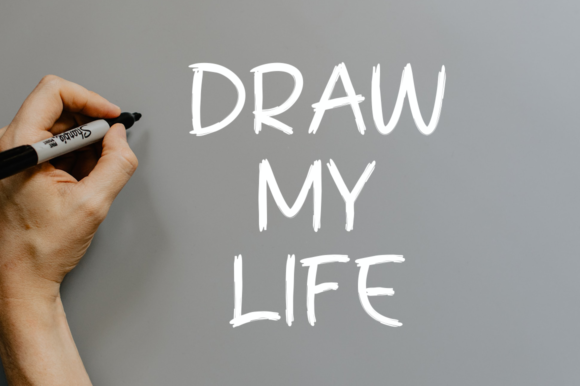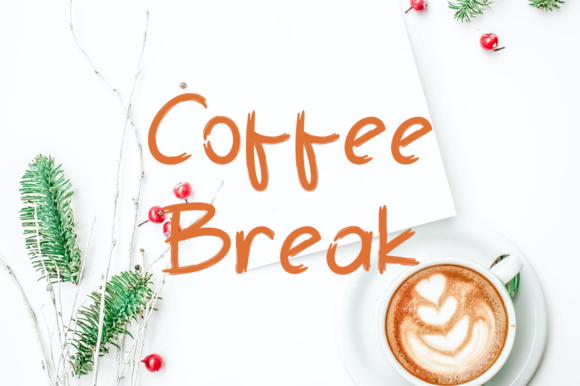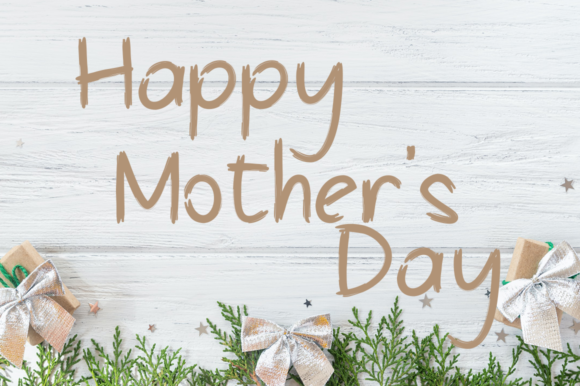
Give Your Designs a Personal Touch with Billa Brush Font
Do you remember that moment when a single design element suddenly sparks a new idea and takes your project to the next level? For many of us, that’s the magic of discovering the perfect font. And today, we’re excited to share with you a game-changer in the world of typography: Billa Brush Font.
This beautiful, thin, and clean handwritten font is designed to add a touch of elegance and sophistication to any project. With its versatility, Billa Brush Font can effortlessly complement a wide range of creative ideas, from fashion and lifestyle to food and travel.
As a designer, you know how valuable it is to have a reliable font that can elevate your work and make it stand out. That’s exactly what Billa Brush Font offers – a unique and stylish element that can take your designs to new heights.
Billa Brush Font Key Features
- Font Family: Billa Brush Font comes in a single font family with 6 styles: Regular, Italic, Bold, Bold Italic, Light, and Light Italic.
- Size: The font size ranges from 8pt to 72pt, making it suitable for various design projects, from small text to large headings.
- Resolution: Optimized for high-resolution displays, the font looks crisp and clear on screens with resolutions up to 300 DPI.
- Unique Characteristics: The Billa Brush Font features a unique, hand-drawn design with subtle brush strokes, giving it a personal and creative feel.
- Language Support: The font supports a wide range of languages, including Latin, Cyrillic, and Greek scripts, making it a versatile choice for global designs.
Billa Brush Font Review
The Billa Brush Font is a fun, handwritten font that can add a personal touch to your designs. ✨ One of its strongest features is its versatility – it can be used for a wide range of projects, from invitations and social media graphics to logos and branding materials. The font’s casual, handwritten feel makes it perfect for creating a friendly and approachable tone.
Another advantage of the Billa Brush Font is its wide range of glyphs and characters. ✨ It includes a variety of punctuation marks, numbers, and special characters, making it easy to use in a variety of contexts. The font also comes in several different styles, from bold and playful to delicate and elegant.
- ⚠️ The font may not be suitable for formal or professional projects, as its casual feel may not be taken seriously.
- ⚠️ Some users may find the font’s irregularities and imperfections distracting or difficult to read.
- ⚠️ The font may not be as legible at smaller font sizes, which can be a limitation for projects that require a lot of text.
Overall, the Billa Brush Font is a great choice for designers who want to add a touch of personality to their projects. While it may not be suitable for every project, it’s a versatile and fun font that can be used in a variety of contexts.
The Billa Brush Font is ideal for:
1. Creating hand-drawn or watercolor-inspired designs.
2. Adding a touch of whimsy to your branding or marketing materials.
3. Designing invitations, posters, or social media graphics.
Tips for Getting the Most Out of the Billa Brush Font
1. Experiment with different font sizes and styles to achieve the desired look.
2. Pair the Billa Brush Font with other fonts to create a unique and eye-catching combination.
3. Use the font in combination with graphics and illustrations to add visual interest to your designs.
Alternatives to Billa Brush Font
The Great Vibes Font is a modern script font that is ideal for creating a fun and playful atmosphere. It is perfect for use in headings, titles, and quotes. Great Vibes Font has a similar hand-drawn feel to Billa Brush Font but has a more polished and refined appearance.